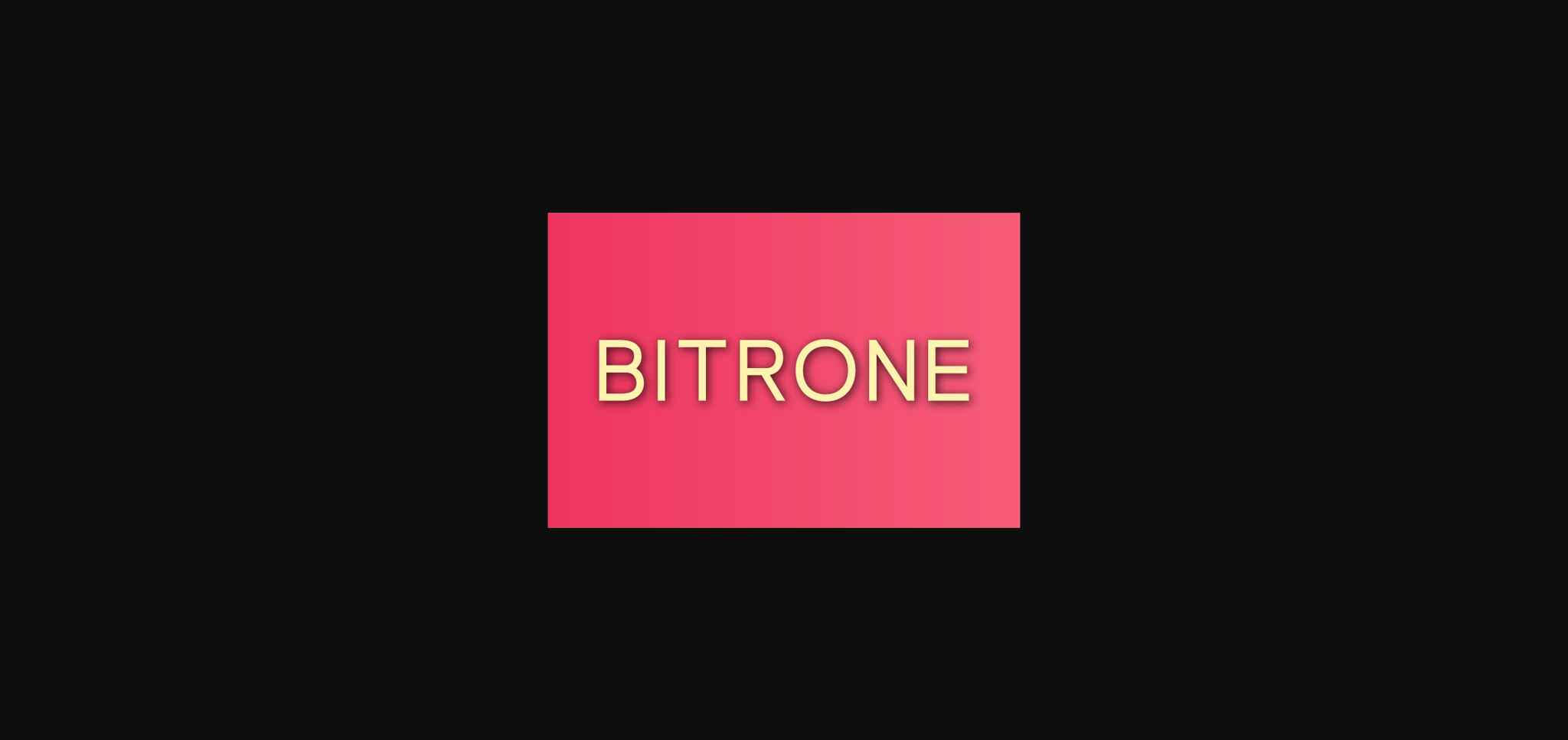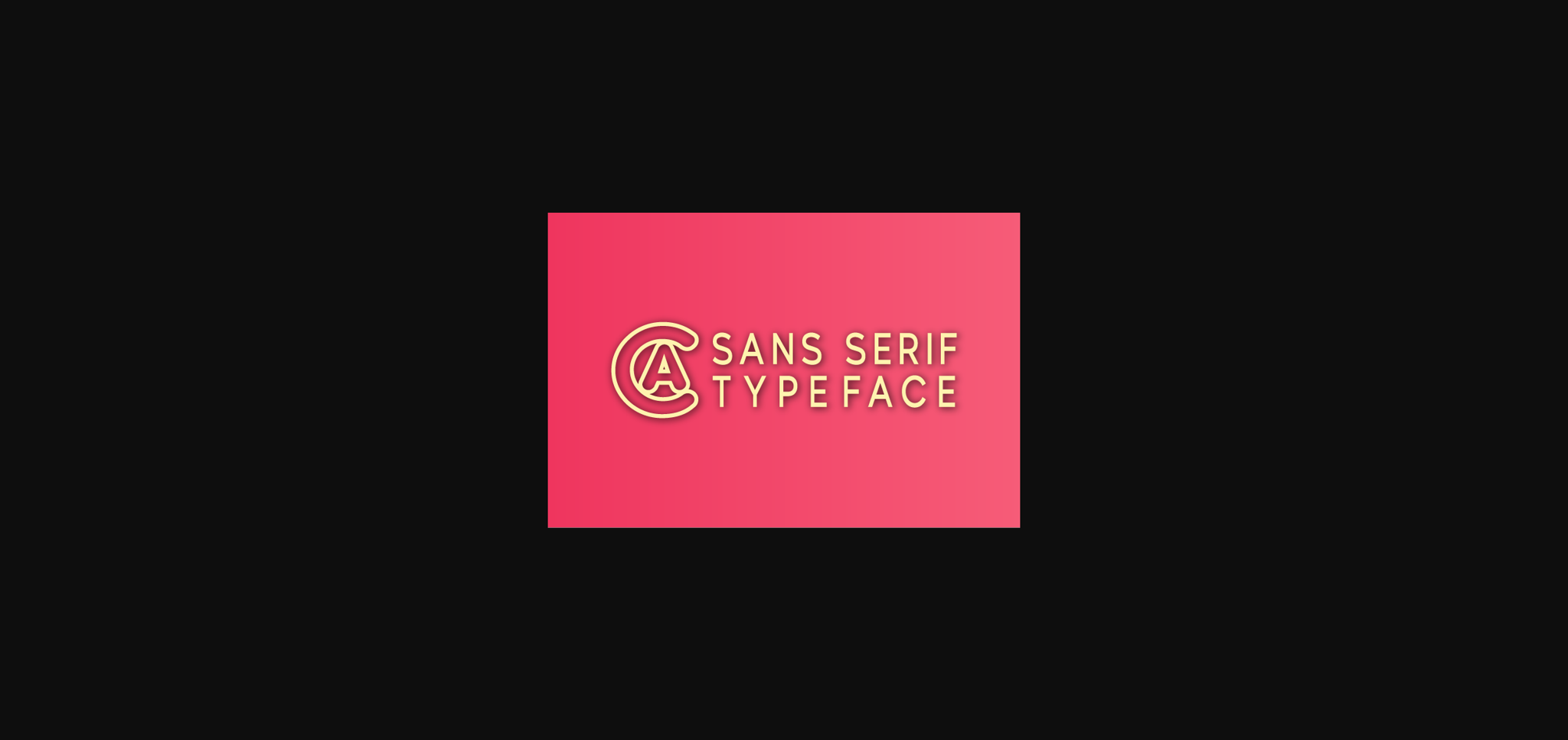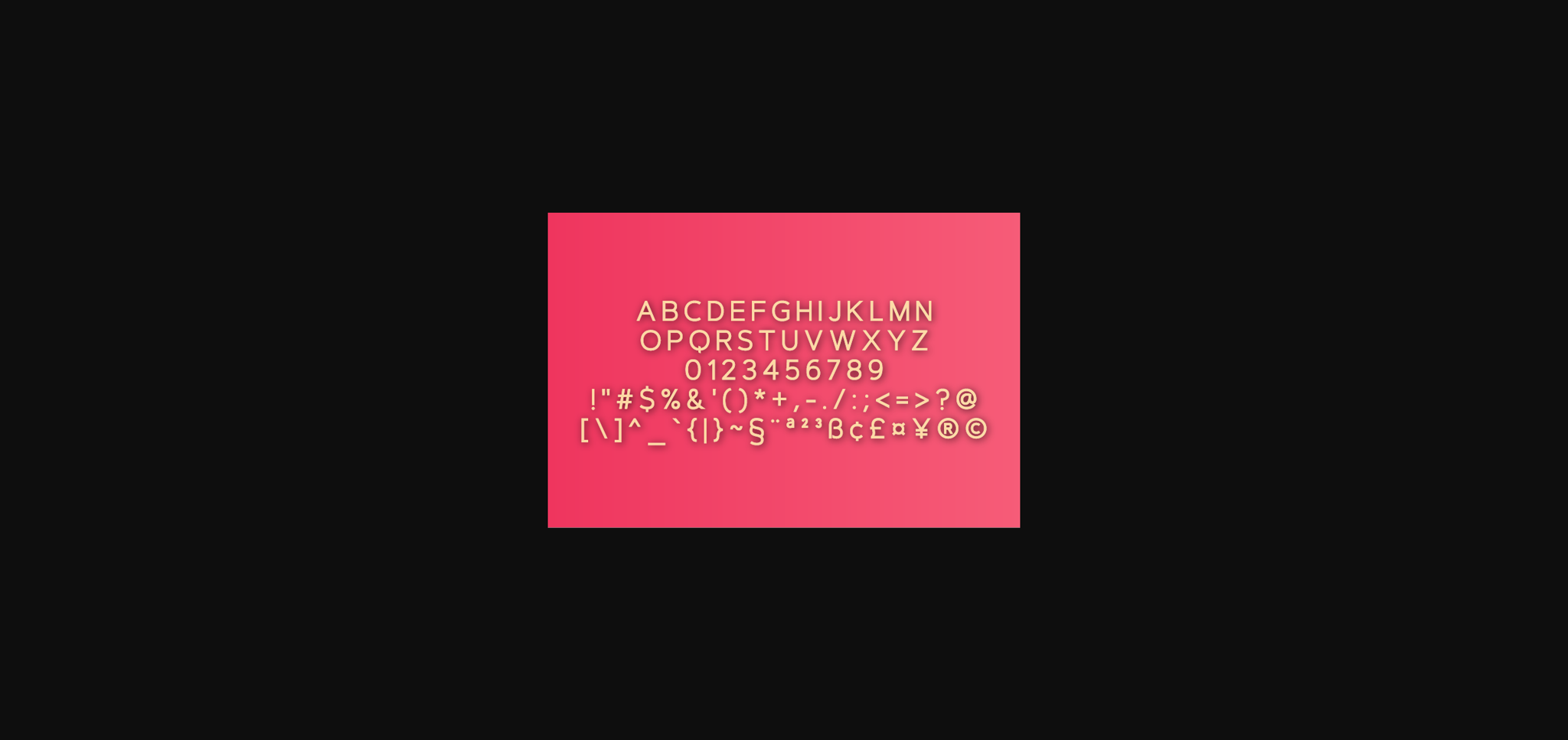
HomeSans Serif FontsBitrone Font Sans Serif Fonts Bitrone Font FacebookXPinterestWhatsApp 1 of 5 ... Bitrone Font Poster 2... Bitrone Font Poster 3... Bitrone Font Poster 4... Bitrone Font Poster 5... About Bitrone Font Bitrone is a minimal and neat sans serif font. It can easily be matched to an incredibly large set of projects, so add it to your creative ideas and notice how it makes them stand out! DOWNLOAD NOW People also explored Play Smile Font Abrista Font Save the Date Font Jullyana Font Grinch X’mas Font Scarlett Mackenzie Font Handmade Font Goodness Cakes Font Yonliws Font 585 0 TagsBitroneBitrone Font Previous articleDeerliona FontNext articleBuffalor Font LEAVE A REPLY Cancel reply Comment: Please enter your comment! Name:* Please enter your name here Email:* You have entered an incorrect email address! Please enter your email address here Website: Save my name, email, and website in this browser for the next time I comment. Personal Use Free Rolling Door Personal Use Free Read more about this font Letter Hanger Personal Use Free Read more about this font Sellena Brush Font Personal Use Free Read more about this font Nuku Nuku Personal Use Free Read more about this font BLOG Fonts That Capture the Spirit of New York City New York City is more than just a place—it’s an experience, a rhythm, a visual language... 5 Fonts That Will Dominate Design Trends in 2026 Best Fonts for YouTube Videos: Make Your Thumbnails Stand Out Free Fonts Risk: Why Free Fonts Can Be Dangerous for Designers